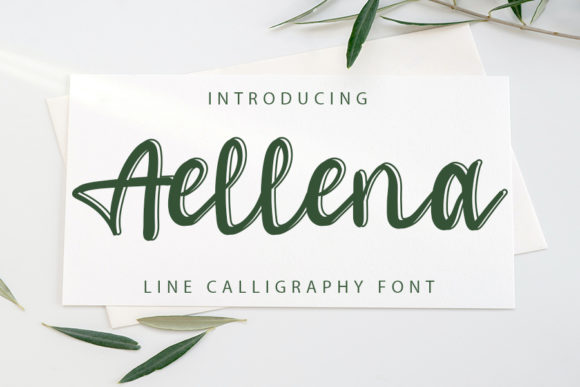
Behold Aellena, a script font of remarkable beauty, meticulously crafted to elevate your designs and capture hearts. Inspired by classic calligraphy yet infused with a modern flair, Aellena dances across your screen, leaving a trail of elegance and sophistication.
Immerse yourself in the world of Aellena, where timeless charm meets contemporary style. This enchanting font, born from the creative mind of FL Space, is a masterpiece that will transform your projects into works of art.
With Aellena, you'll experience the joy of creating stunning business cards that leave a lasting impression. Its flowing strokes and graceful curves add a touch of personal elegance, making each card a unique reflection of your brand's identity.
Beyond business cards, Aellena's versatility knows no bounds. Its captivating presence adds a touch of magic to invitations, wedding stationery, social media posts, and branding materials. Whether you're a creative professional or a design enthusiast, Aellena will become your trusted companion, bringing your vision to life with effortless grace.
Aellena is more than just a font; it's an experience. Each letter is a brushstroke of artistry, a testament to the passion and dedication poured into its creation. As you type, you'll feel the weight and texture of each character, guiding your words with a sense of purpose and elegance.
Fall in love with Aellena, the script font that ignites creativity, captures attention, and leaves an indelible mark on the hearts of your audience. With its timeless beauty and modern appeal, Aellena is the ultimate choice for those who seek to captivate and inspire.